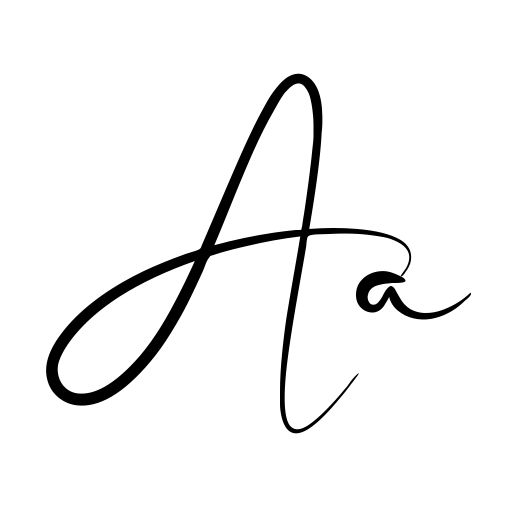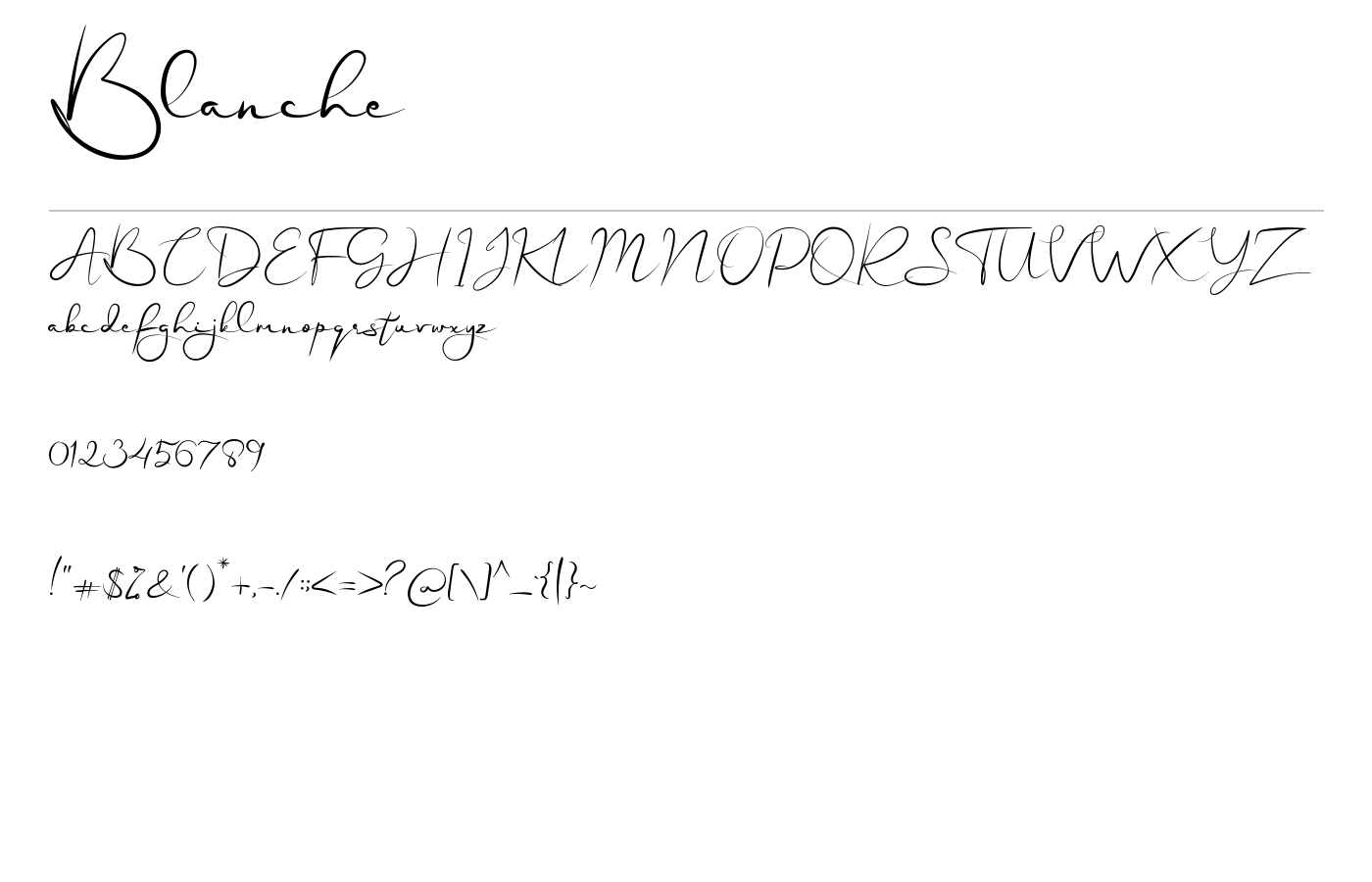
Blanche Font is an elegant, delicate script typeface characterized by its thin, flowing strokes and graceful calligraphic style. It exudes a sophisticated and romantic personality, perfect for luxury branding, wedding invitations, and stylish editorial work where a feminine and refined touch is desired. Its light weight and airy letterforms make it best for large display use, where its intricate details can truly stand out.
Blanche Font
About Blanche Font